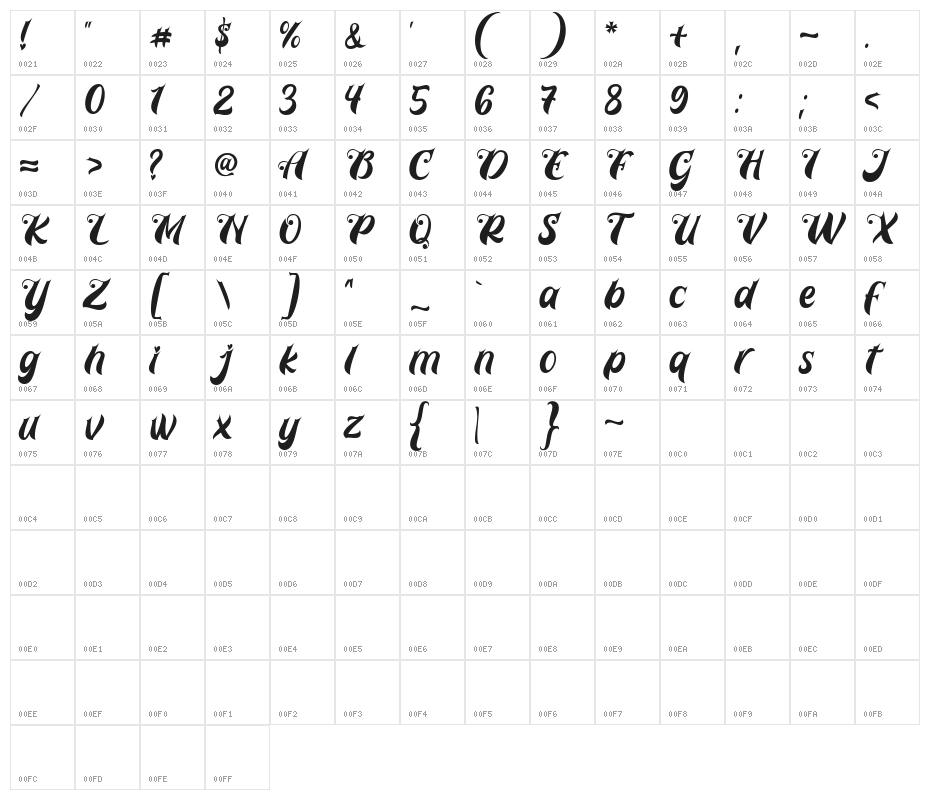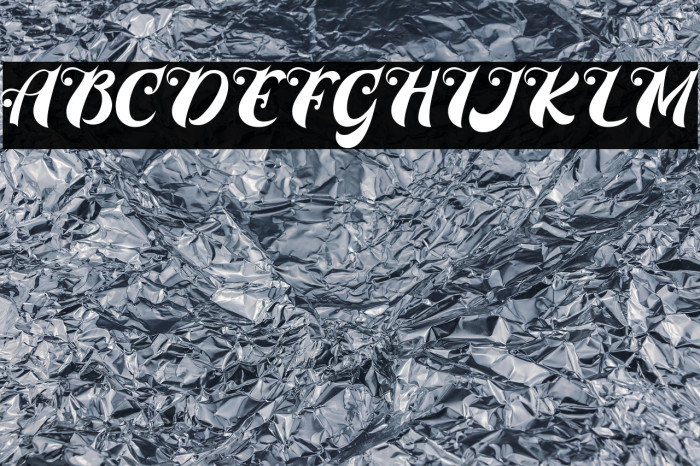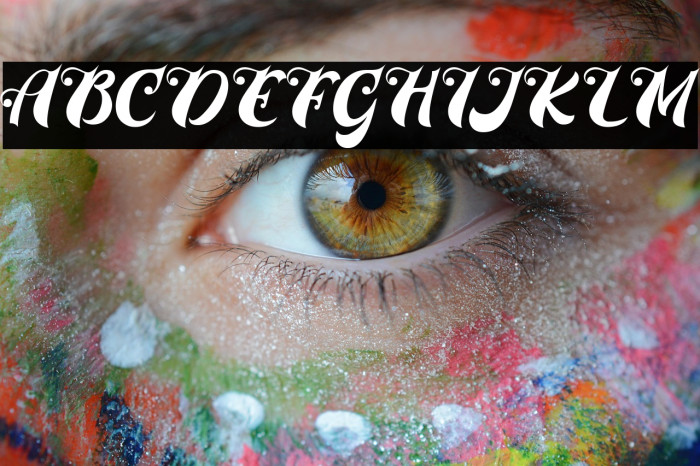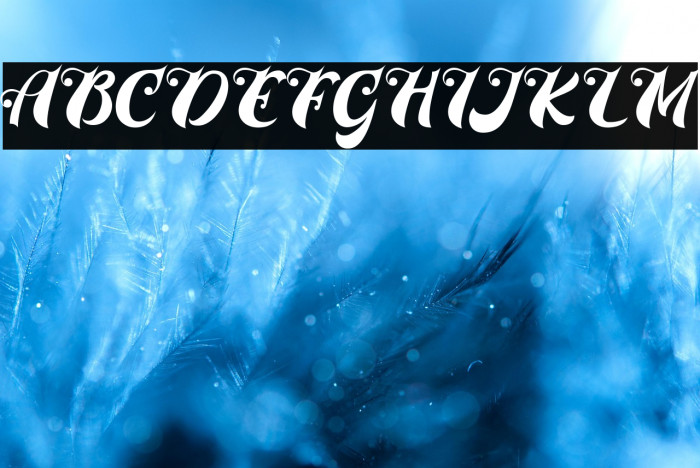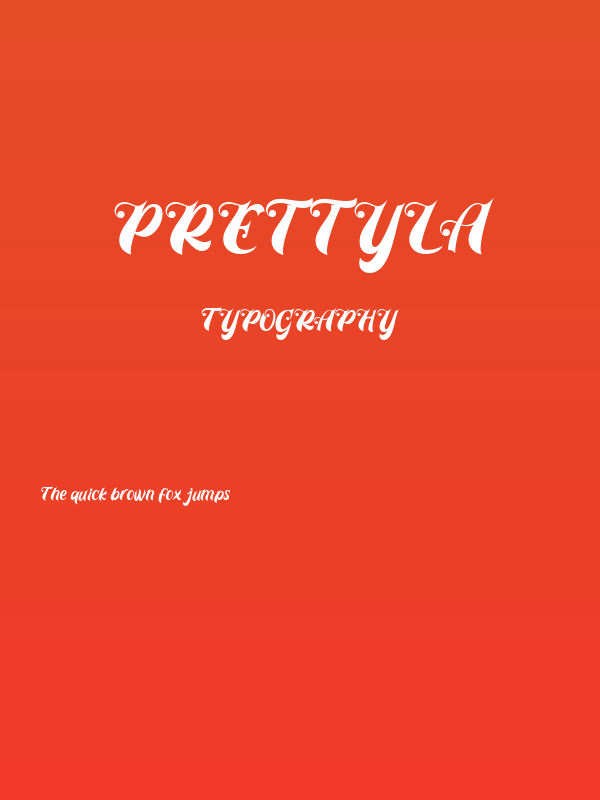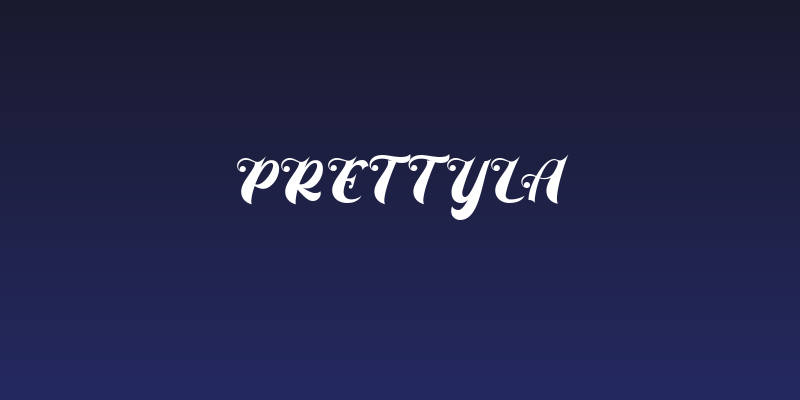
Prettyla Font
This font features a bold and expressive script style, characterized by its flowing, cursive letterforms and dramatic flourishes. The uppercase letters are particularly ornate, with sweeping curves and decorative elements that give the font a sense of elegance and sophistication. The lowercase letters maintain a consistent style, with smooth connections and a rhythmic flow. The numerals are bold and dynamic, matching the overall aesthetic of the font. Special characters are designed with the same attention to detail, ensuring a cohesive look across all glyphs. This font is ideal for projects that require a touch of elegance and flair, such as invitations, branding, and decorative headlines.
| Use Case | Headlines, Logos, Invitations |
| Proposed Projects | Ideal for wedding invitations, luxury branding, decorative headlines, and artistic projects. |